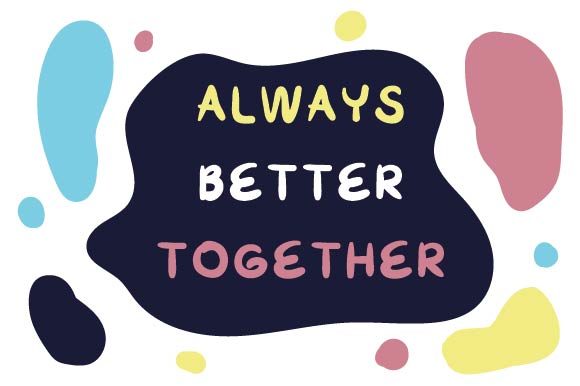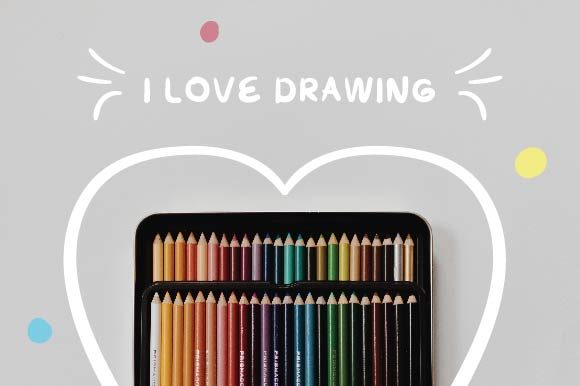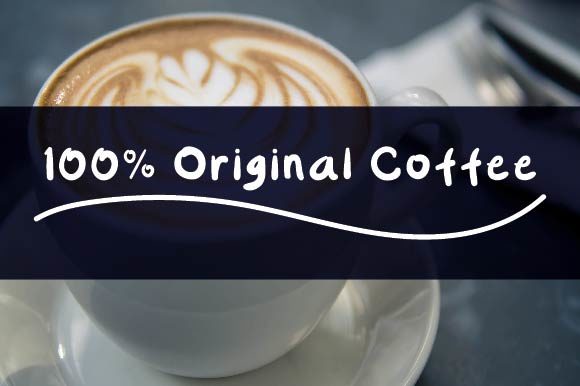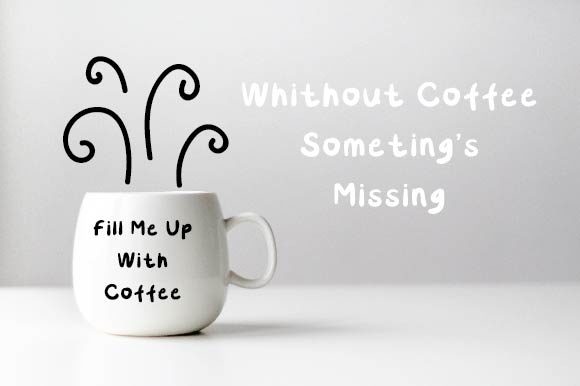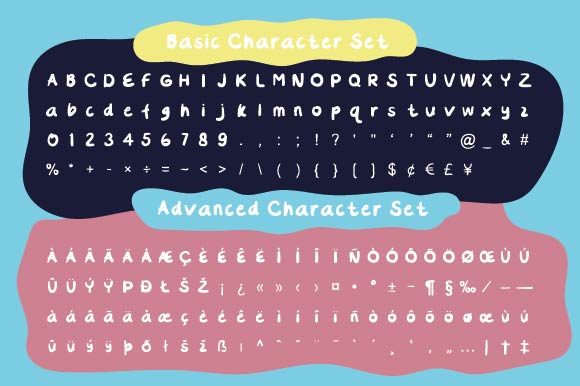
Cute’s Font: The Ultimate Display Font for Whimsical Designs
Are you tired of using the same old fonts in your design projects? Look no further than Cute’s Font, a really adorable and fun display font that’s sure to add a touch of whimsy to any design. With its undeniably charming feel, Cute’s Font is the perfect choice for designers and crafters looking to create stunning and unique designs.
The Unique Charm of Cute’s Font
Cute’s Font is a display font that’s all about personality. Its unique feel is unmistakable, and it’s sure to make any design project stand out from the crowd. The font’s whimsical charm is perfect for designs that require a playful and fun touch, such as children’s party invitations, social media graphics, and craft projects.
What Makes Cute’s Font So Special?
So, what sets Cute’s Font apart from other fonts? Here are just a few things that make it so special:
- Unique letterforms: Cute’s Font features unique and quirky letterforms that are sure to add a touch of personality to any design.
- Whimsical charm: The font’s whimsical charm is undeniable, making it perfect for designs that require a playful and fun touch.
- Adorable and fun: Cute’s Font is, quite simply, adorable and fun. It’s the perfect choice for designers and crafters who want to create designs that are both visually appealing and engaging.
How to Use Cute’s Font in Your Designs
Using Cute’s Font in your designs is easy. Here are a few tips to get you started:
- Pair it with a simple font: Cute’s Font is a display font, so it’s best paired with a simple font for body text. This will help to create a clear visual hierarchy in your design.
- Use it for headings: Cute’s Font is perfect for headings and titles. Use it to add a touch of personality to your design and draw attention to important information.
- Experiment with colors and textures: Cute’s Font looks great in a variety of colors and textures. Experiment with different combinations to find the one that works best for your design.
Cute’s Font in Action
So, what can you create with Cute’s Font? The possibilities are endless! Here are a few ideas to get you started:
- Children’s party invitations: Cute’s Font is perfect for children’s party invitations. Use it to create fun and playful designs that kids will love.
- Social media graphics: Cute’s Font is great for social media graphics, such as Facebook posts and Instagram stories. Use it to add a touch of personality to your social media designs.
- Craft projects: Cute’s Font is perfect for craft projects, such as handmade cards and gift tags. Use it to add a touch of whimsy to your craft designs.
Cute’s Font is a really adorable and fun display font that’s sure to add a touch of whimsy to any design project. With its unique feel and undeniably charming charm, it’s the perfect choice for designers and crafters looking to create stunning and unique designs. So why not give Cute’s Font a try? Fall in love with its unique feel, and turn any design project into a stunner!